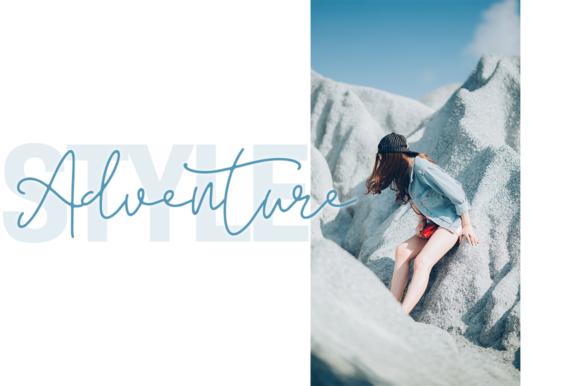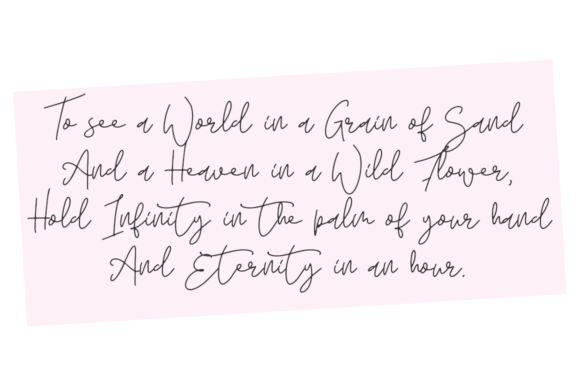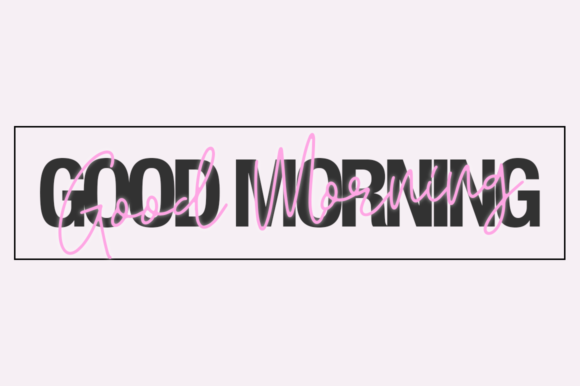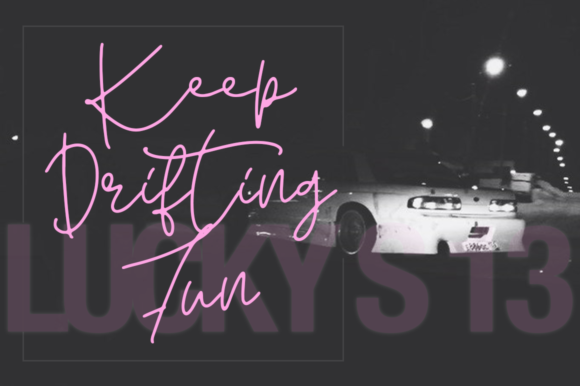
Desert Strike Font
About Desert Strike Font
Desert Strike is a fresh and simple handwritten font. It is suitable for greeting cards, branding materials, business cards, quotes, posters, and much more!